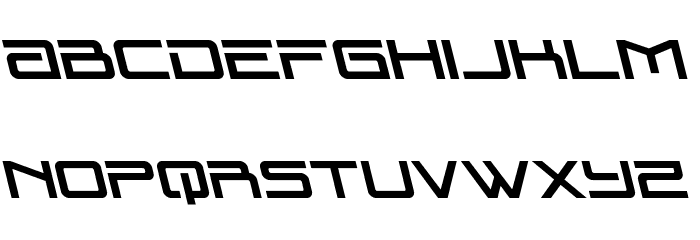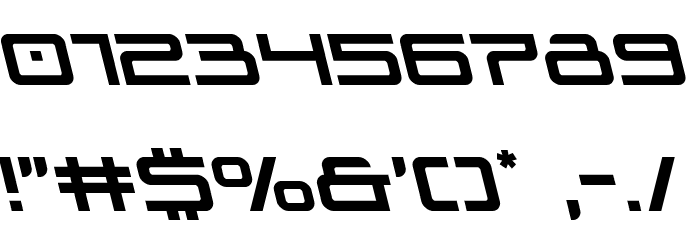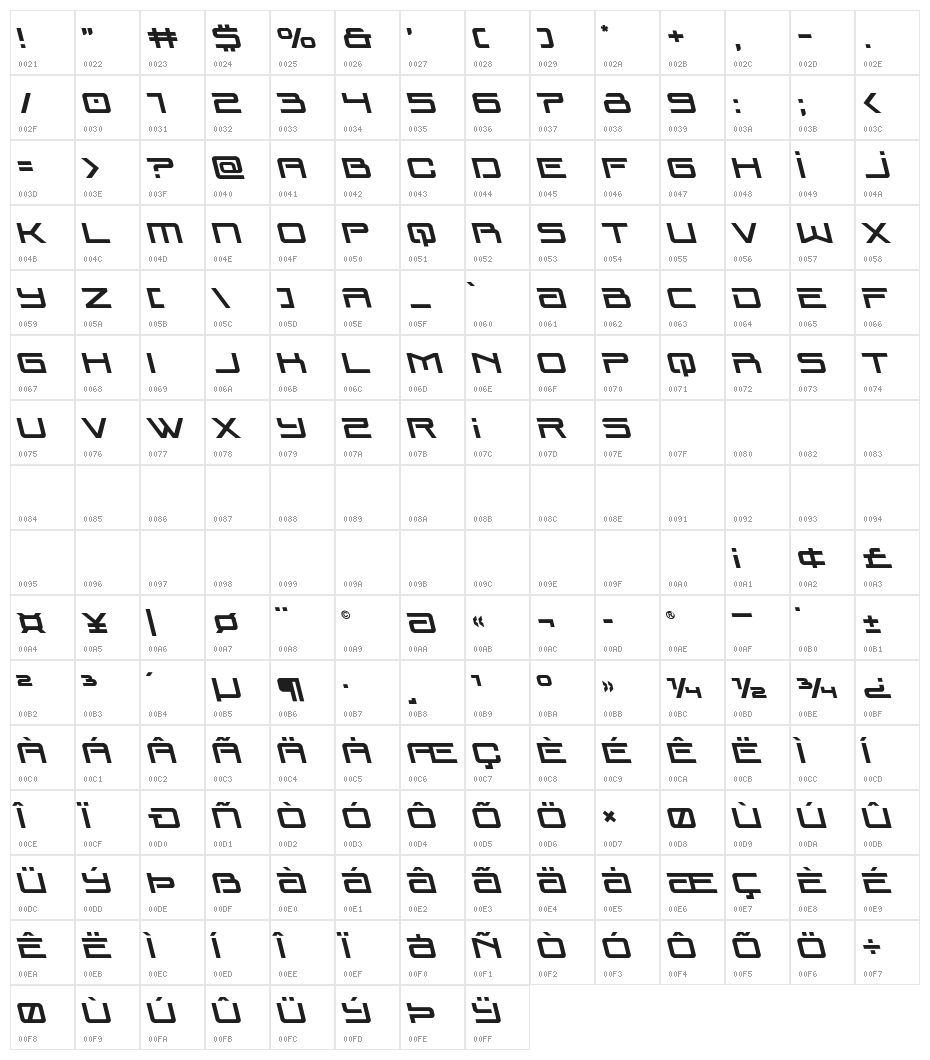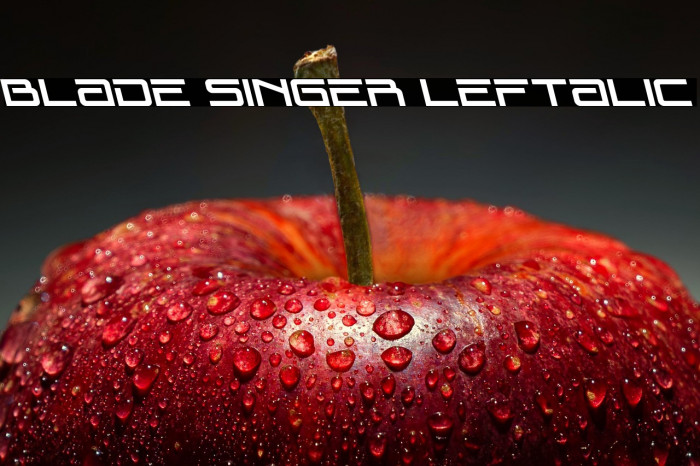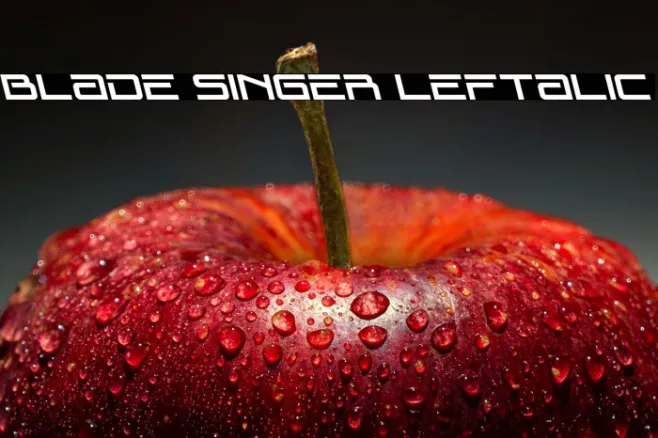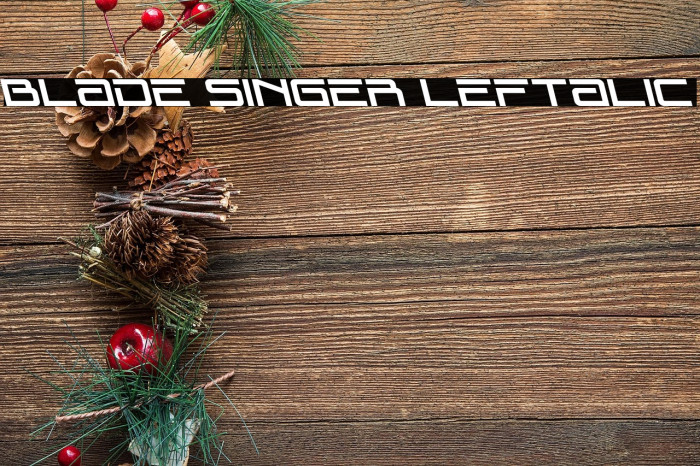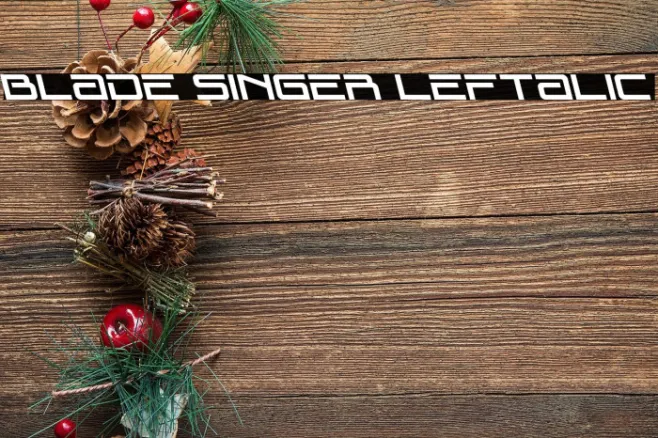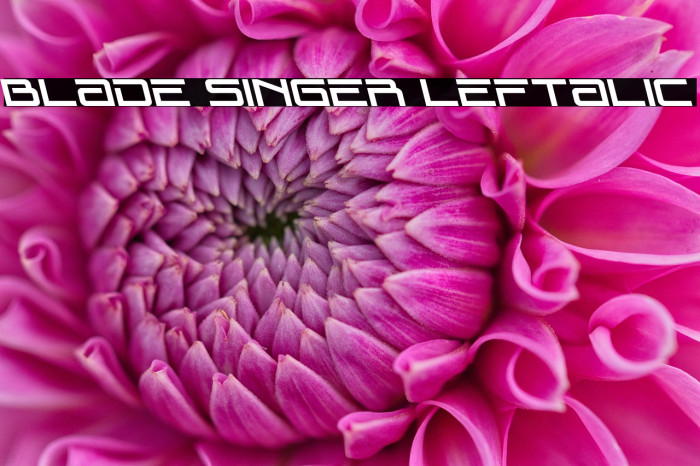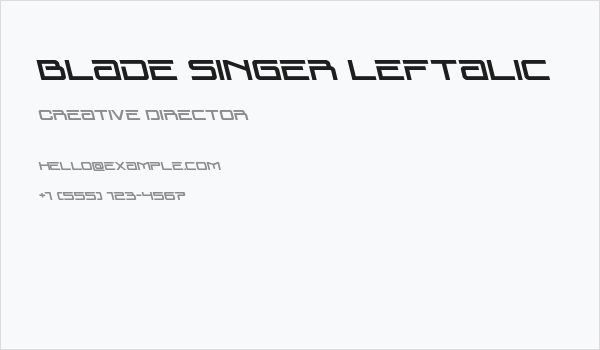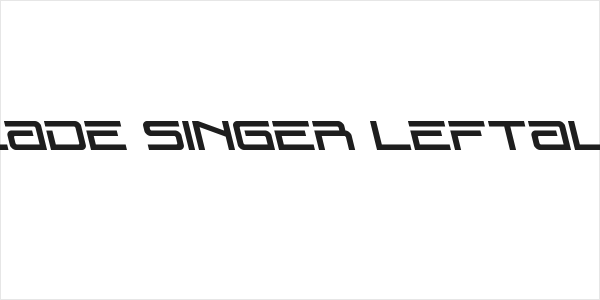
Blade Singer Leftalic Font
This font features a futuristic and angular design, characterized by its sharp edges and geometric shapes. The letters are slightly slanted, giving a dynamic and forward-moving appearance. The uppercase and lowercase characters maintain a consistent style, with a uniform stroke width that adds to its modern aesthetic. The numerals and special characters are designed to match the overall theme, with a distinct and cohesive look. This font is suitable for projects that require a bold and contemporary feel, such as technology-related branding or sci-fi themed designs.
A futuristic, angular font with a dynamic slant and geometric shapes.
- Proposed Projects: Ideal for technology branding, sci-fi themes, and modern design projects.